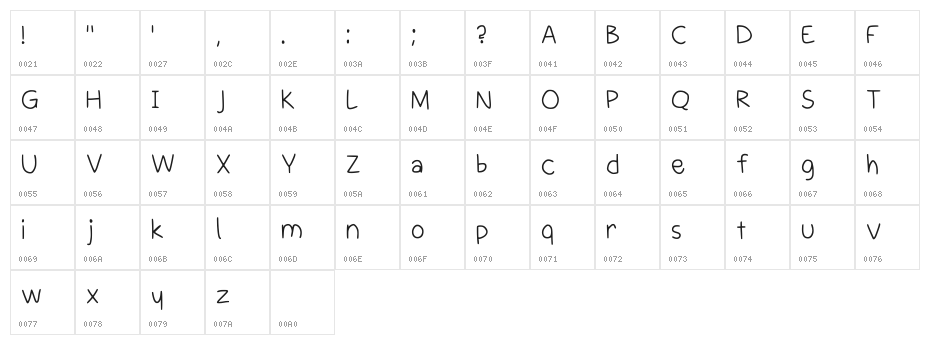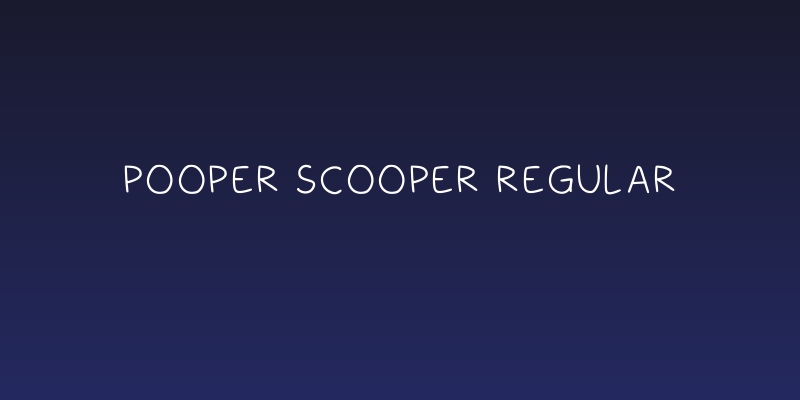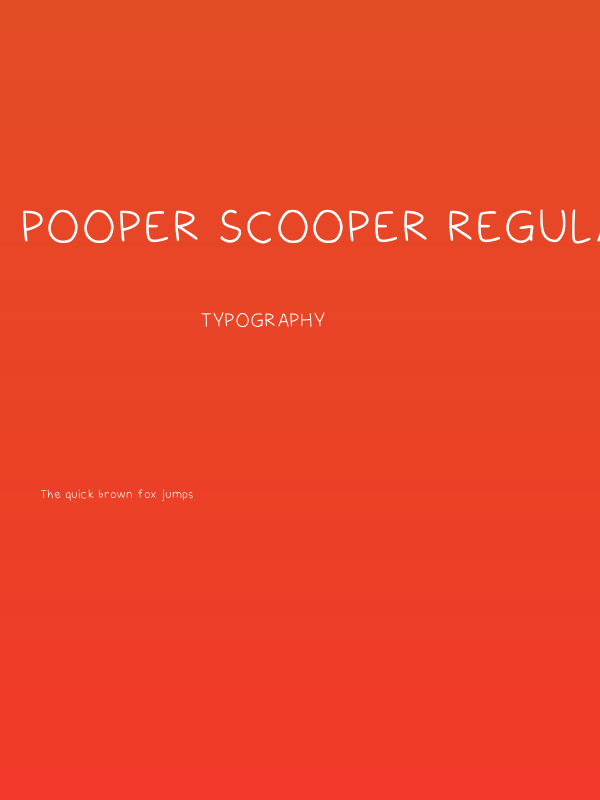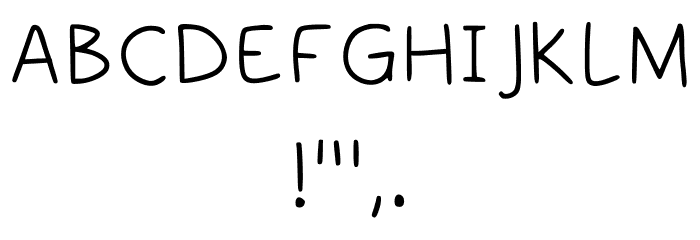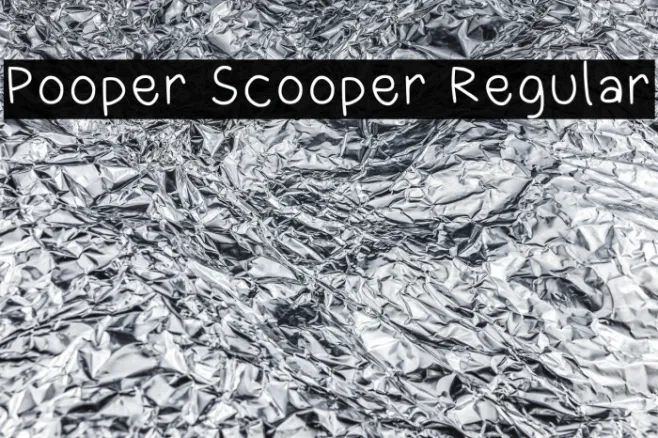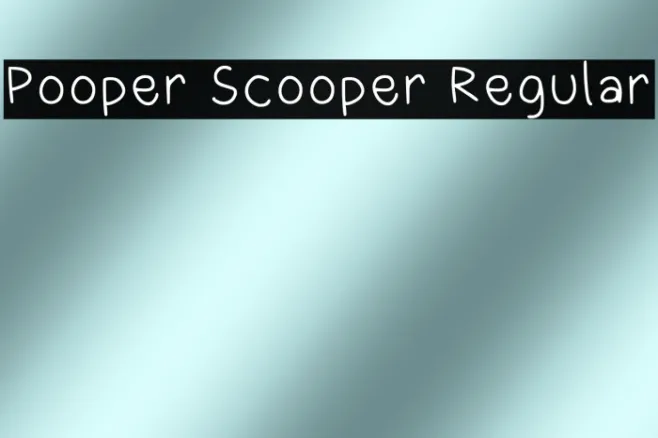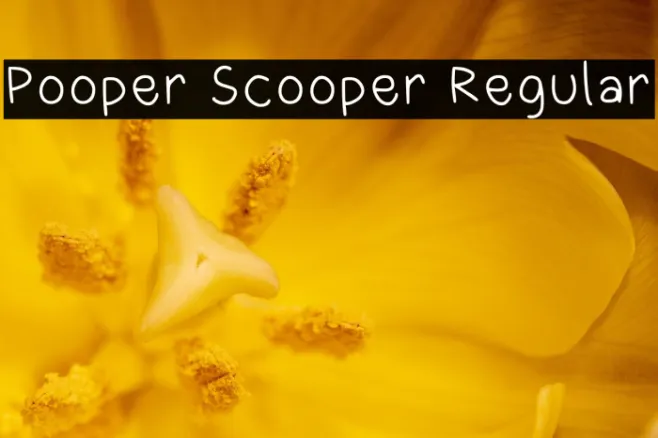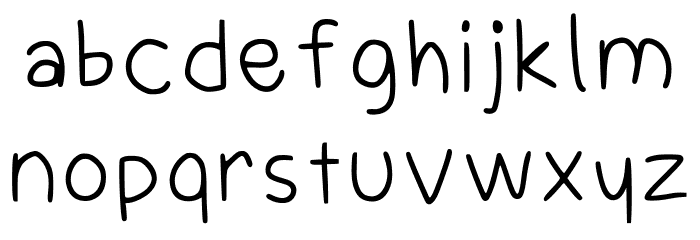
Pooper Scooper Regular Font
Pooper Scooper Regular Description
This playful and whimsical font features a handwritten style with a casual and friendly appearance. The characters are slightly irregular, adding a touch of personality and charm. The strokes are consistent in width, giving it a uniform look while maintaining a relaxed feel. The font includes both uppercase and lowercase letters, as well as a selection of punctuation marks. Its simplicity and readability make it suitable for informal contexts, where a light-hearted tone is desired.
| Use Case | Headlines, Informal text, Branding |
| Proposed Projects | Ideal for children's books, greeting cards, casual invitations, and playful branding. |